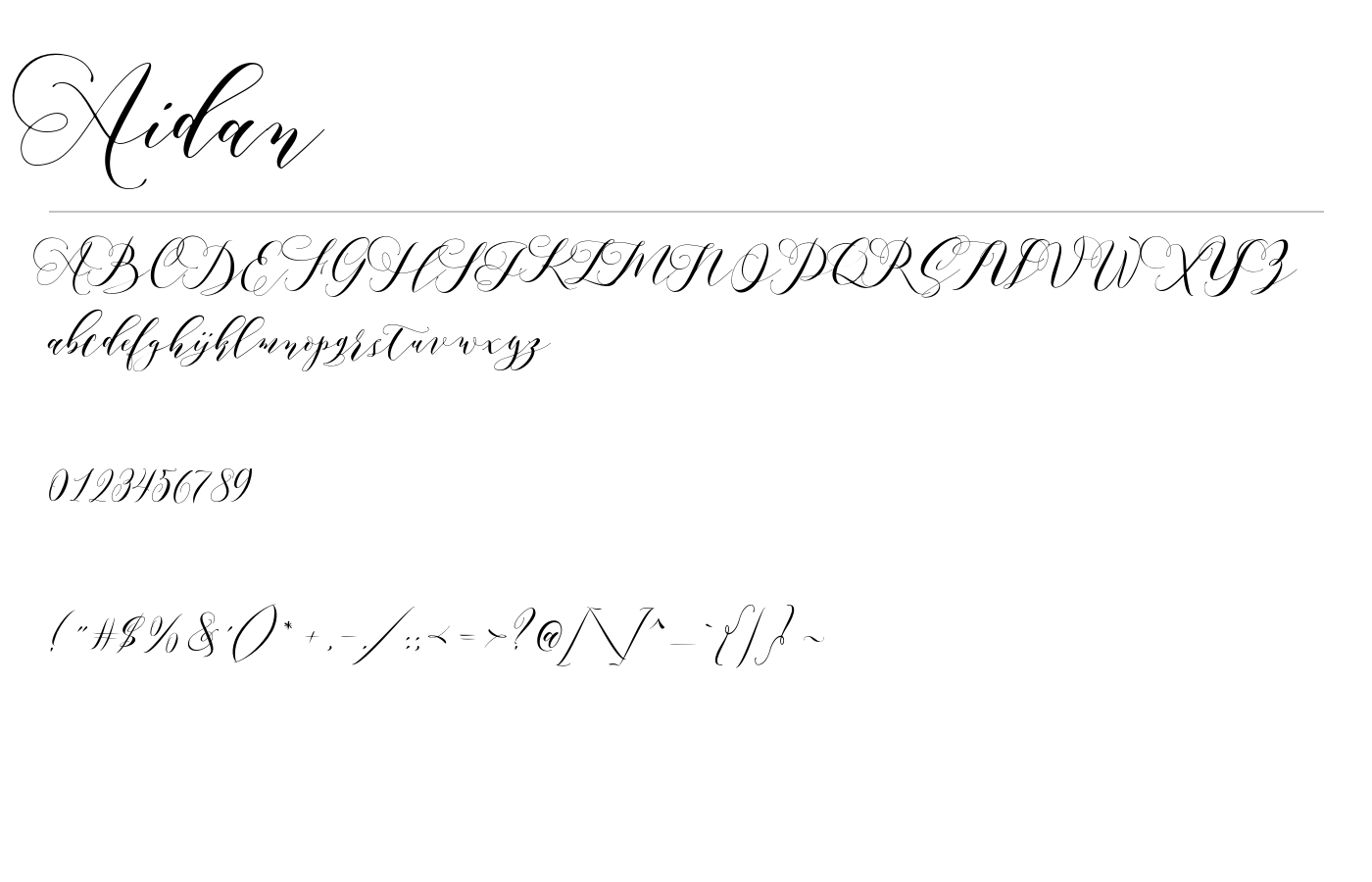
Aidan Font is an elegant, delicate script typeface characterized by its flowing, thin strokes and elaborate swashes, creating a graceful and sophisticated appearance. Its high contrast between thick and thin lines, combined with refined cursive letterforms, makes it ideal for luxury branding, wedding invitations, and upscale editorial uses where a touch of classic charm and refinement is desired. This font shines best in large display settings, adding a romantic and stylish flair to headlines and logos.
Aidan Font
About Aidan Font